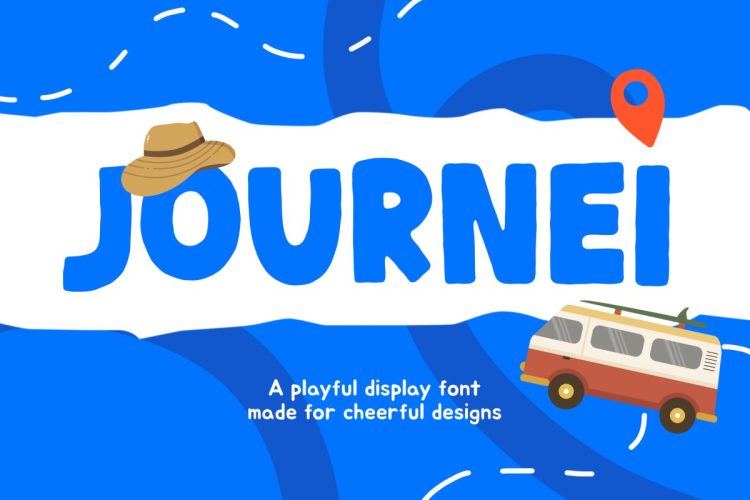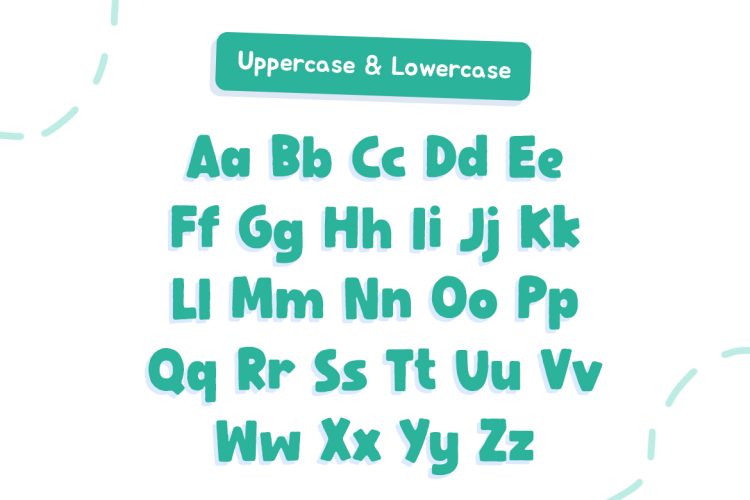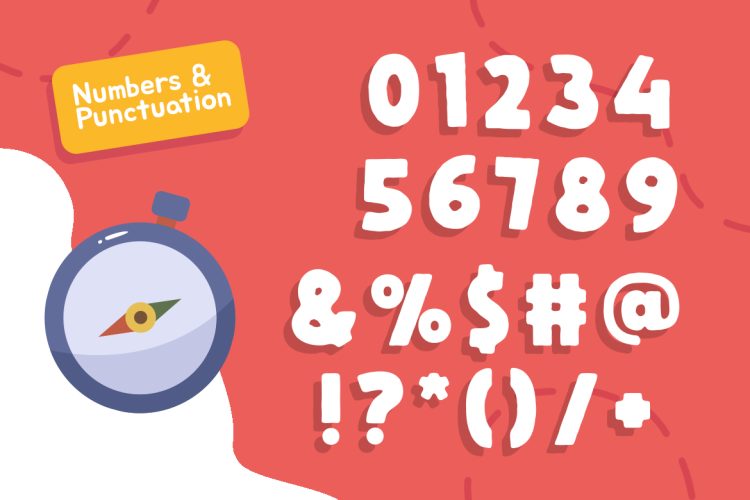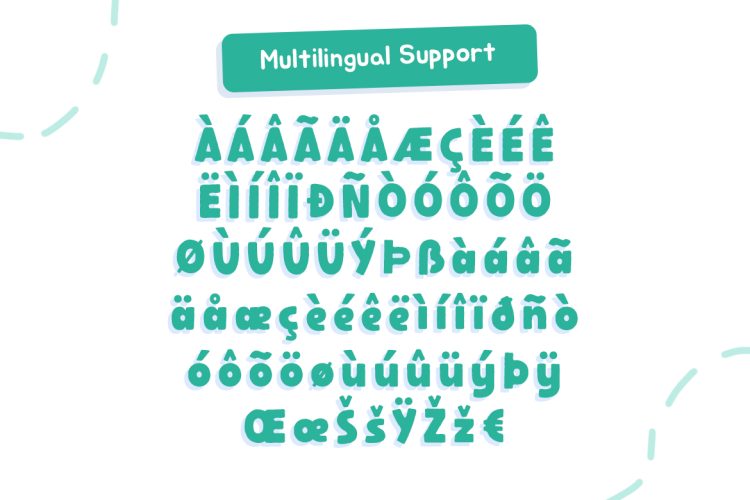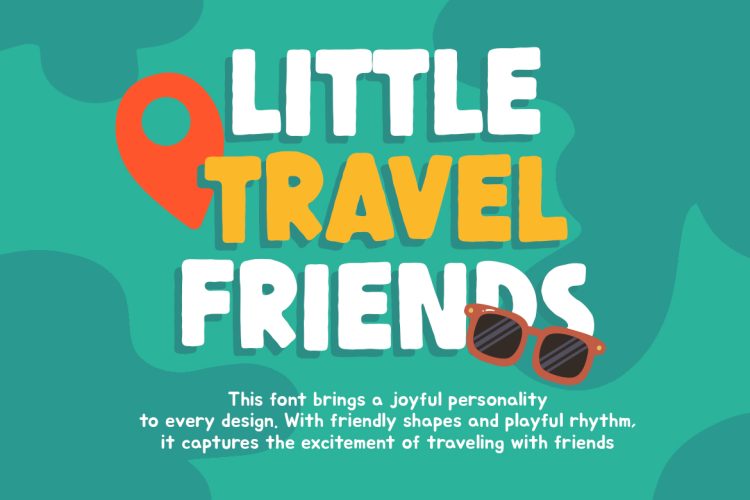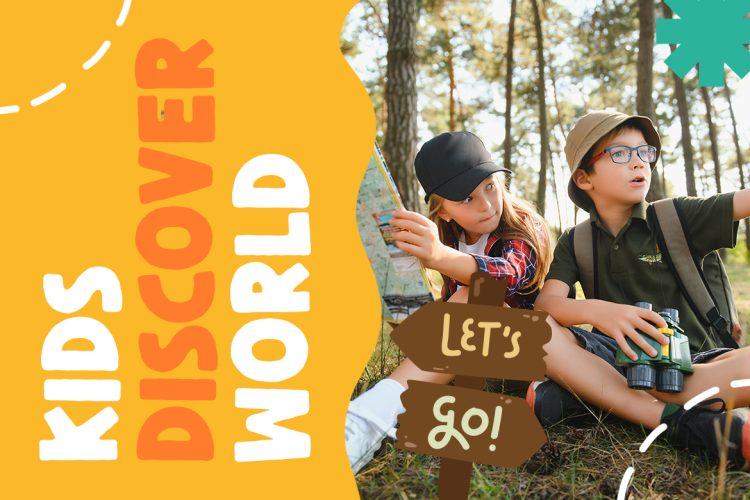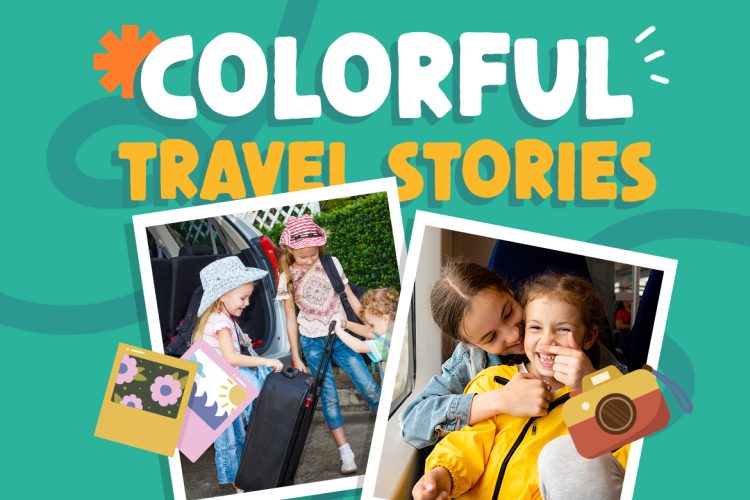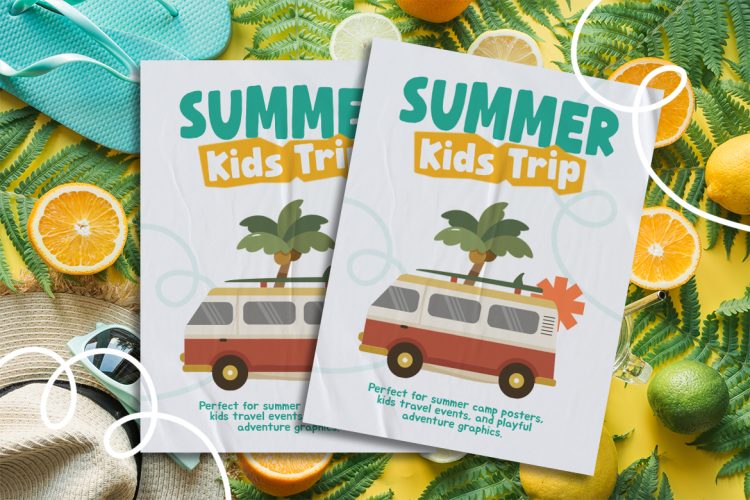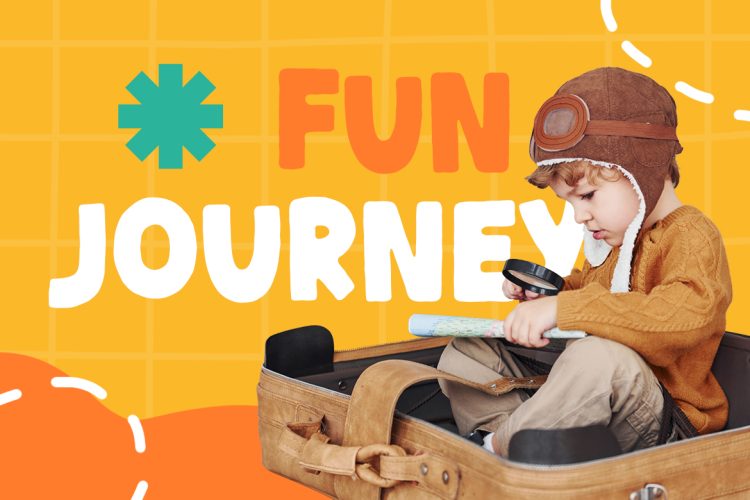
Journei โ Playful Adventure Kids Font
Kids Font Journei is a cheerful and adventurous display typeface designed to capture the spirit of exploration and childhood curiosity. Its rounded letterforms, playful curves, and friendly proportions instantly create a warm and energetic visual style. Because of its soft shapes and lively design, the font feels welcoming and easy to read. As a result, every headline becomes bright, expressive, and engaging. Moreover, the fun character of the typography adds personality to creative layouts without losing clarity. Kids Font Journei is perfect for designs that celebrate adventure, learning, and imagination. In addition, the font supports 67 languages, allowing designers to create joyful designs for audiences around the world.
Kids Font Journei combines playful cartoon-style letterforms with clean and balanced spacing. Each character is crafted with smooth curves and friendly shapes that create a lighthearted and approachable look. Therefore, the font feels fun and energetic while maintaining excellent readability.
Furthermore,ย Journei works beautifully in projects that need a colorful and adventurous tone. For example, it fits perfectly in travel-themed childrenโs books, playful posters, educational materials, and kids activity designs. In addition, the cheerful style makes it ideal for social media graphics, branding for childrenโs products, and vibrant promotional content. Because of this versatility, the font adapts easily to both digital and print designs.
Kids Font Journei is ideal for graphic designers, educators, childrenโs brands, content creators, and creative studios. It works especially well for kids travel themes, childrenโs books, educational posters, school projects, playful packaging, toy branding, and colorful social media graphics.